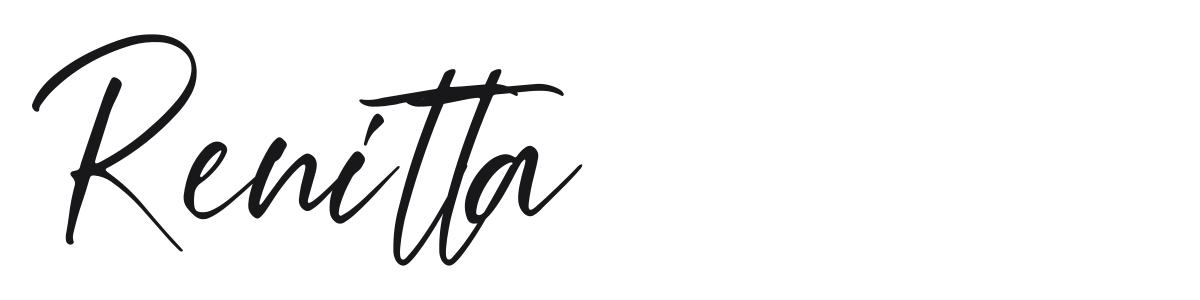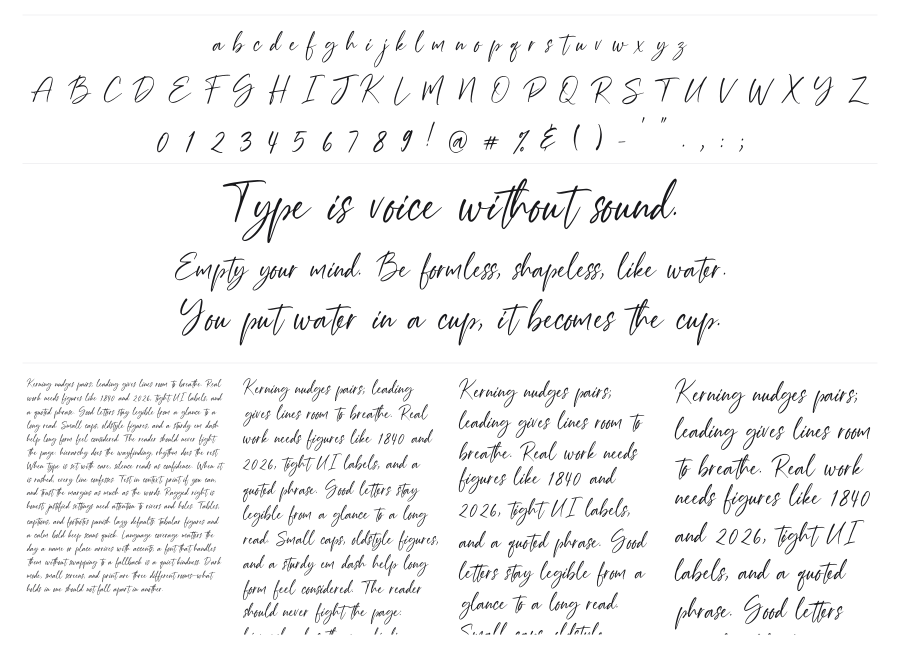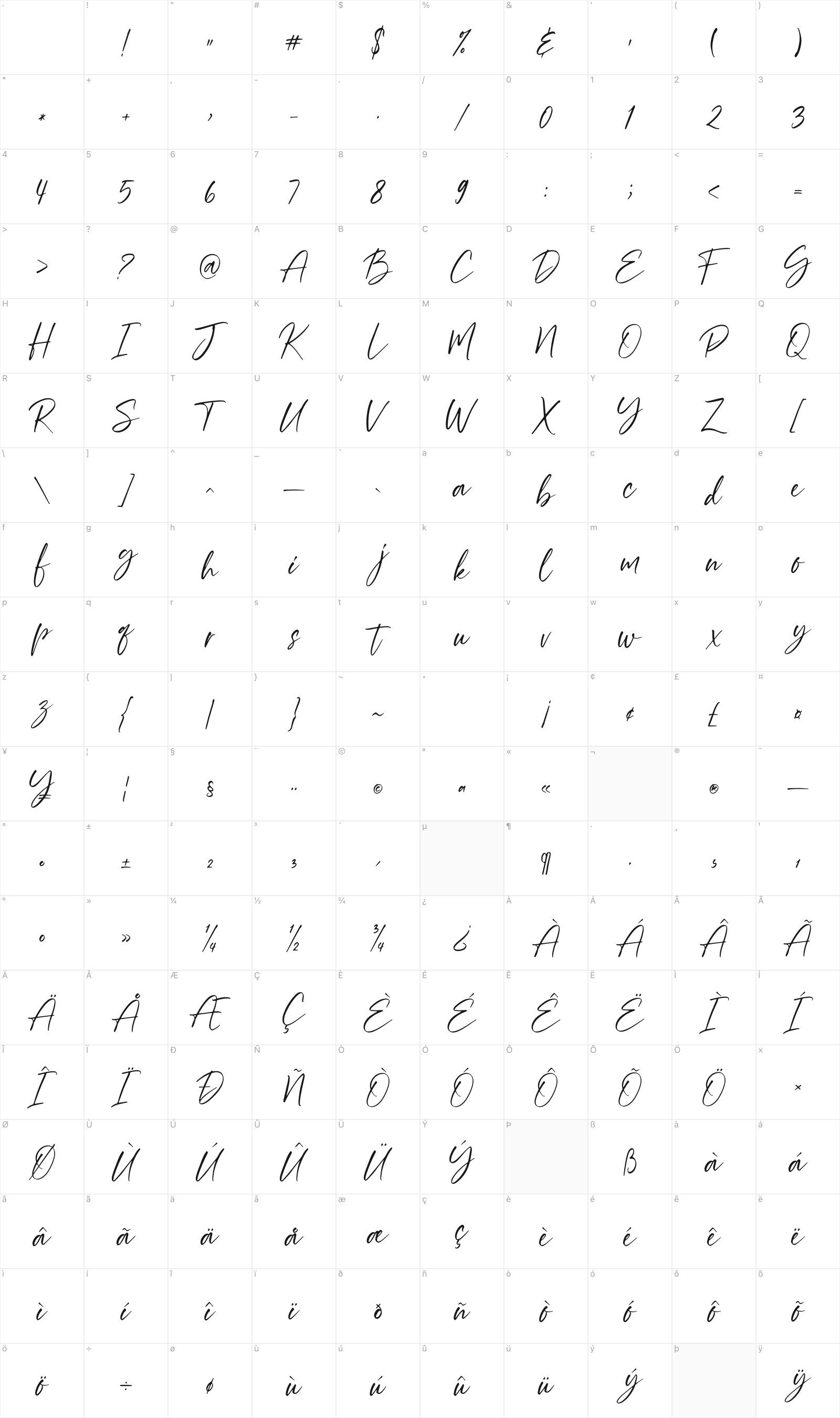
Renitta
Renitta is a casual handwritten script drawn from natural pen strokes, with flowing connections and gracefully looping ascenders and descenders. The organic rhythm gives it a genuine written quality that sits comfortably between polished calligraphy and everyday handwriting. It works well at large sizes for wedding invitations, brand logos, quotes, and fashion editorial.